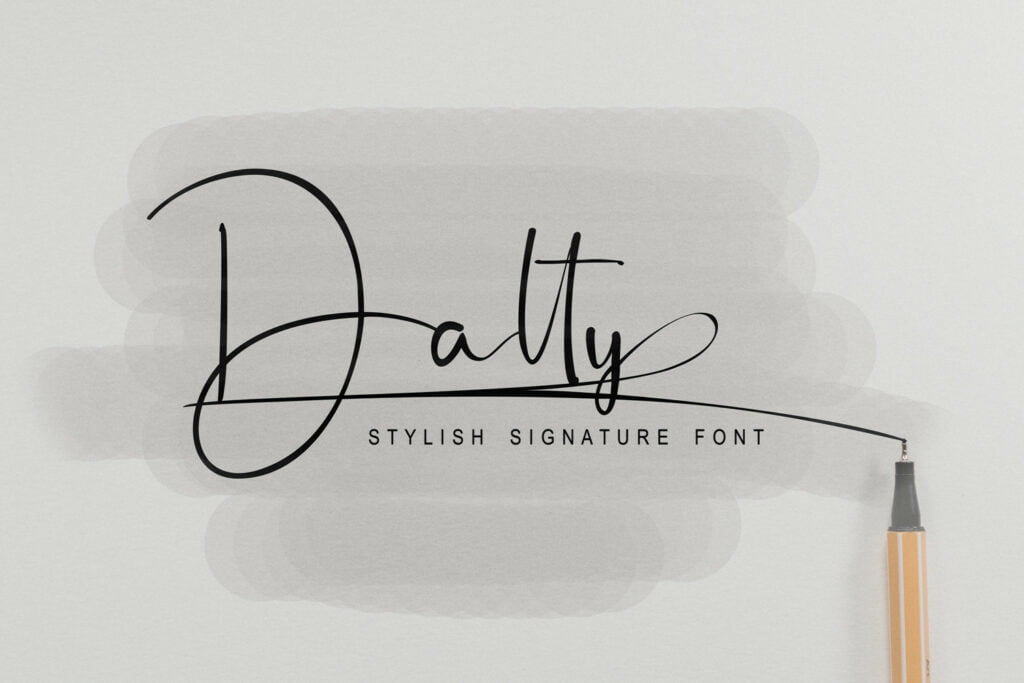
Dalty Font
Dalty is a thin lettered and graceful script font. Fall for its ravishing style and use it to create gorgeous designs! Dalty is PUA encoded which means you can access all glyphs and swashes with ease!
DaltyHandwritten Script Font